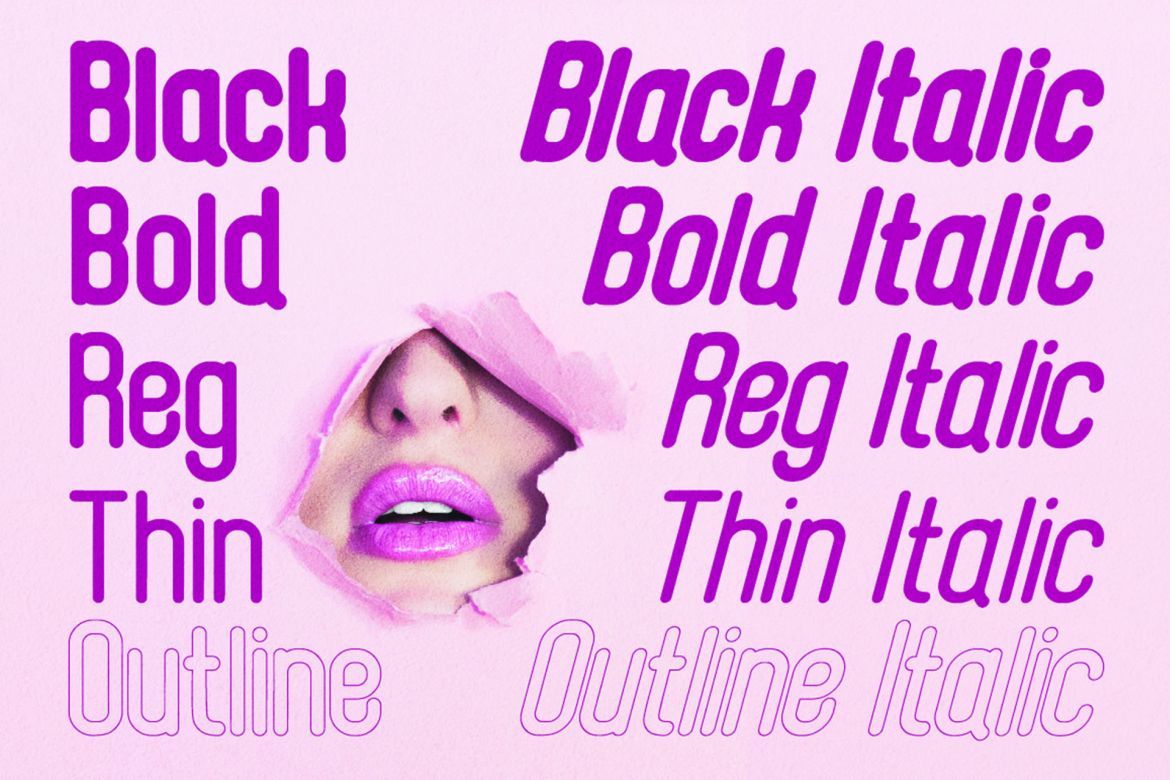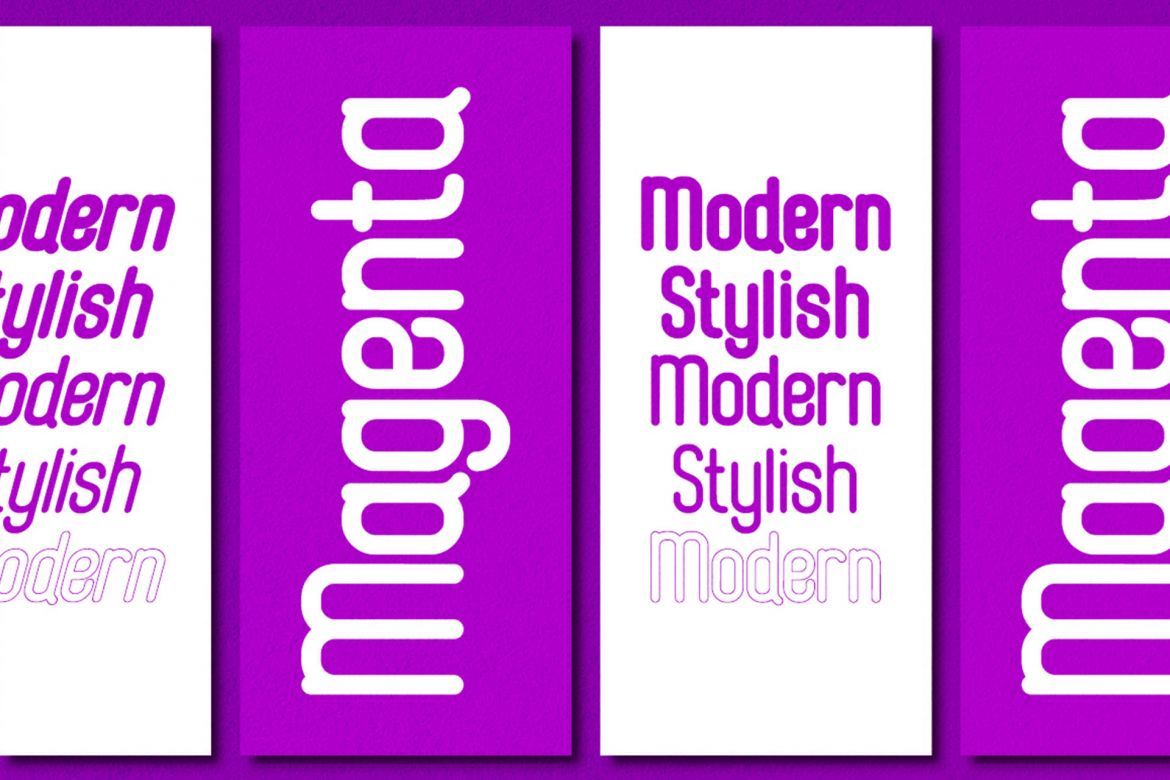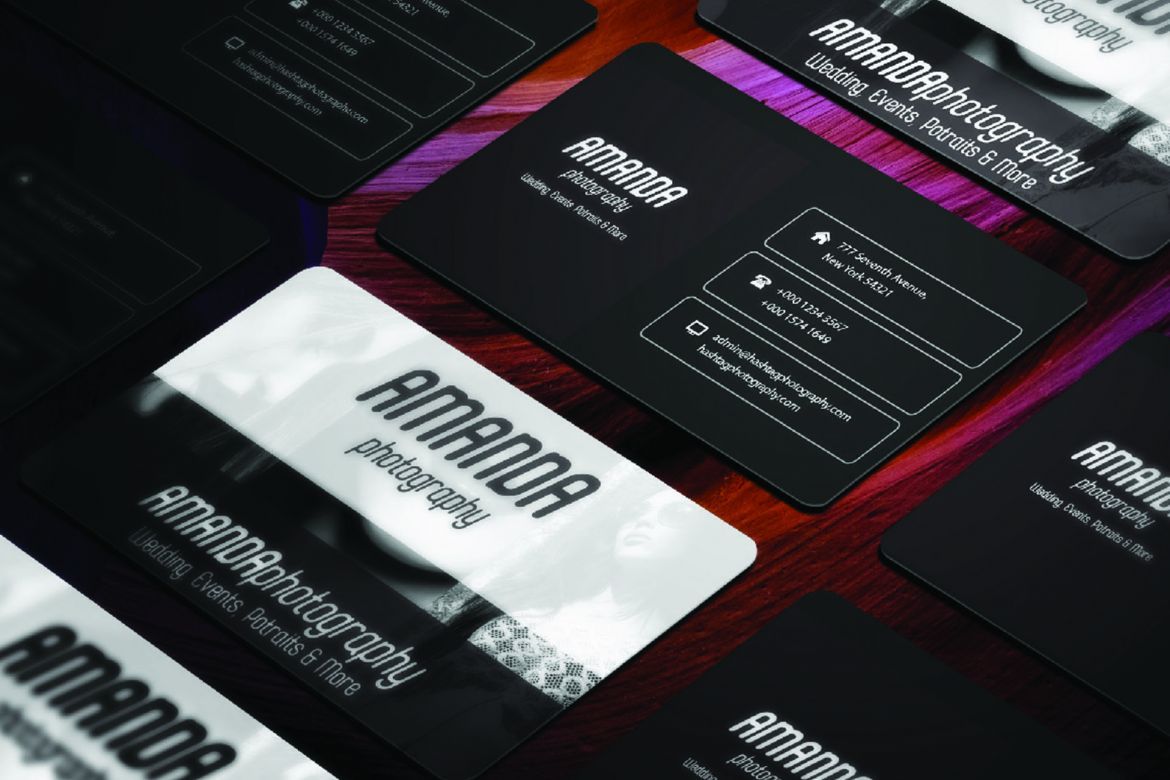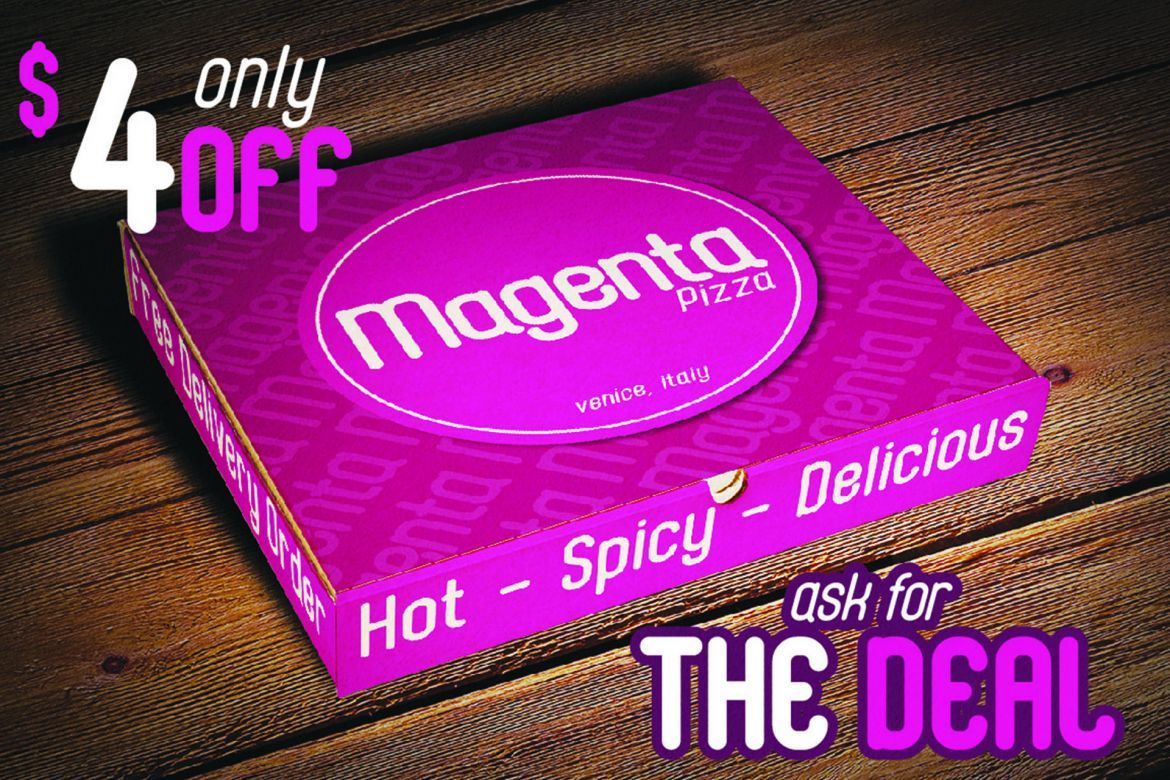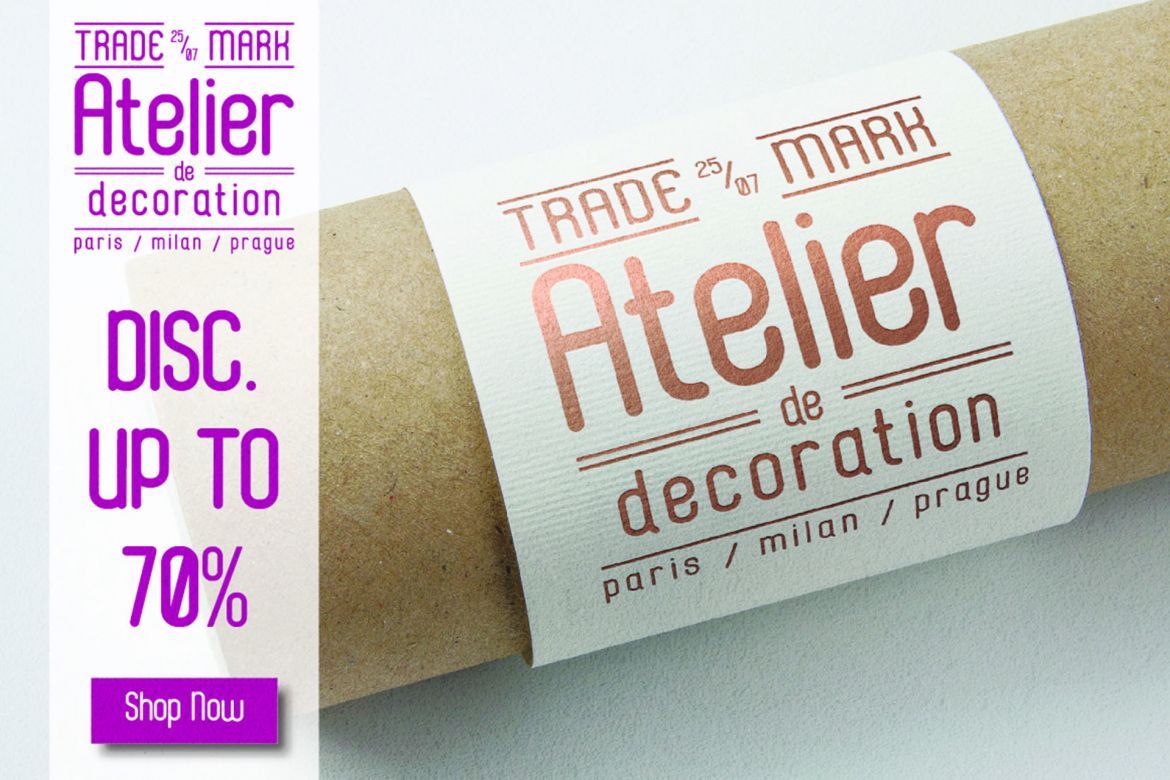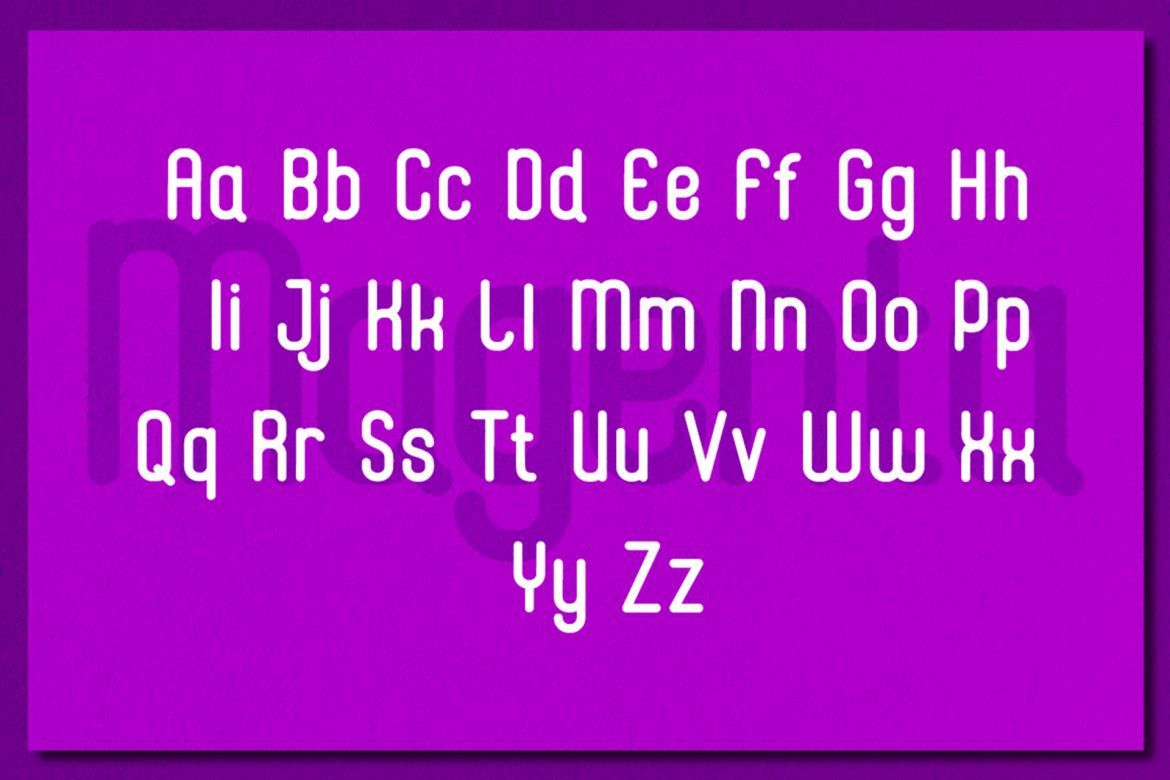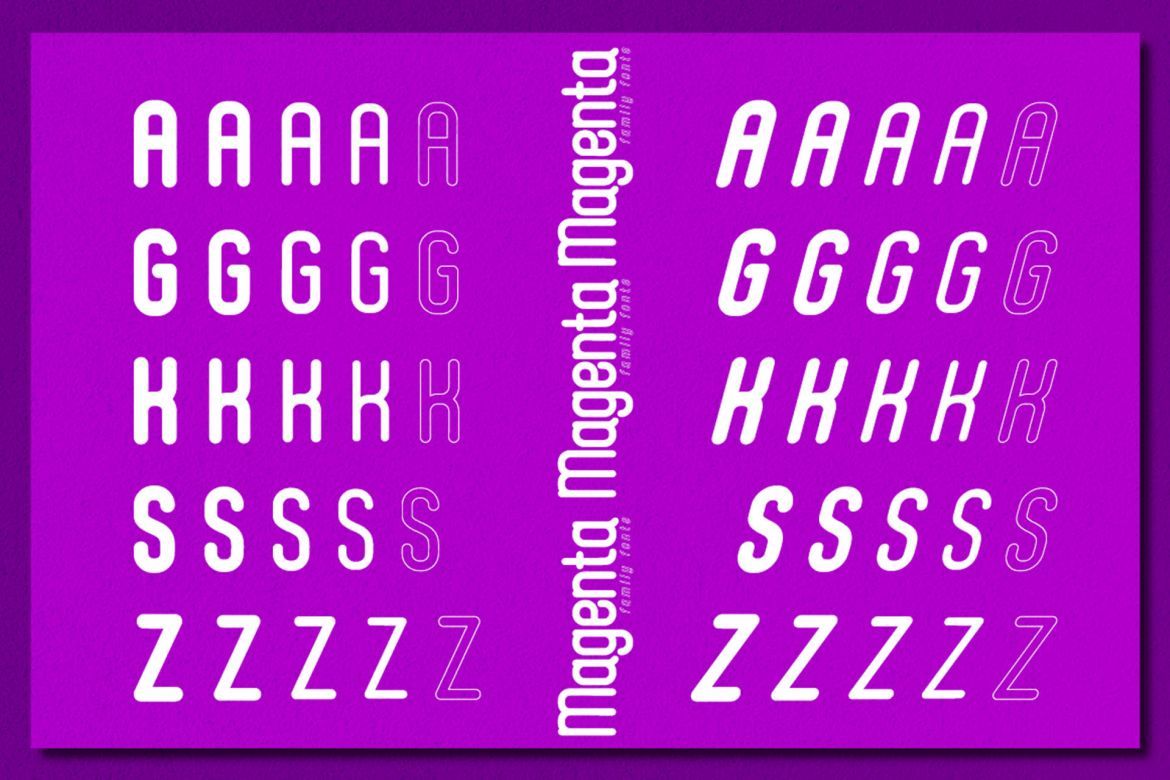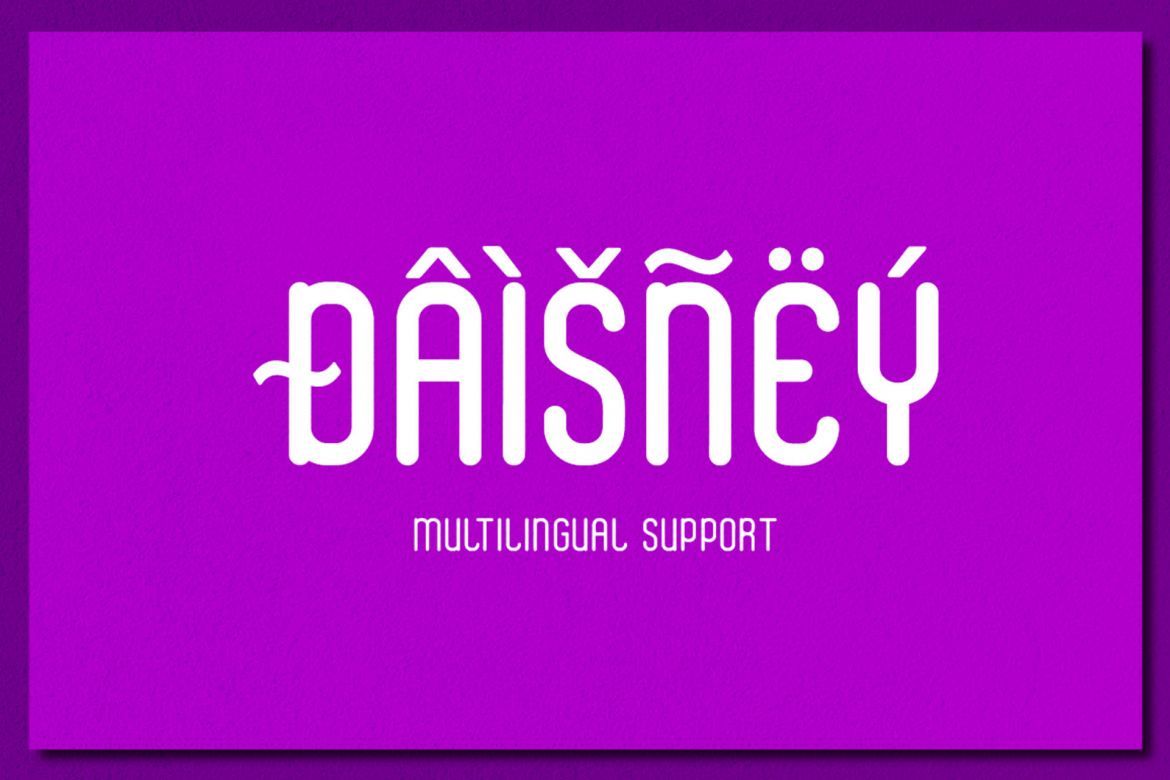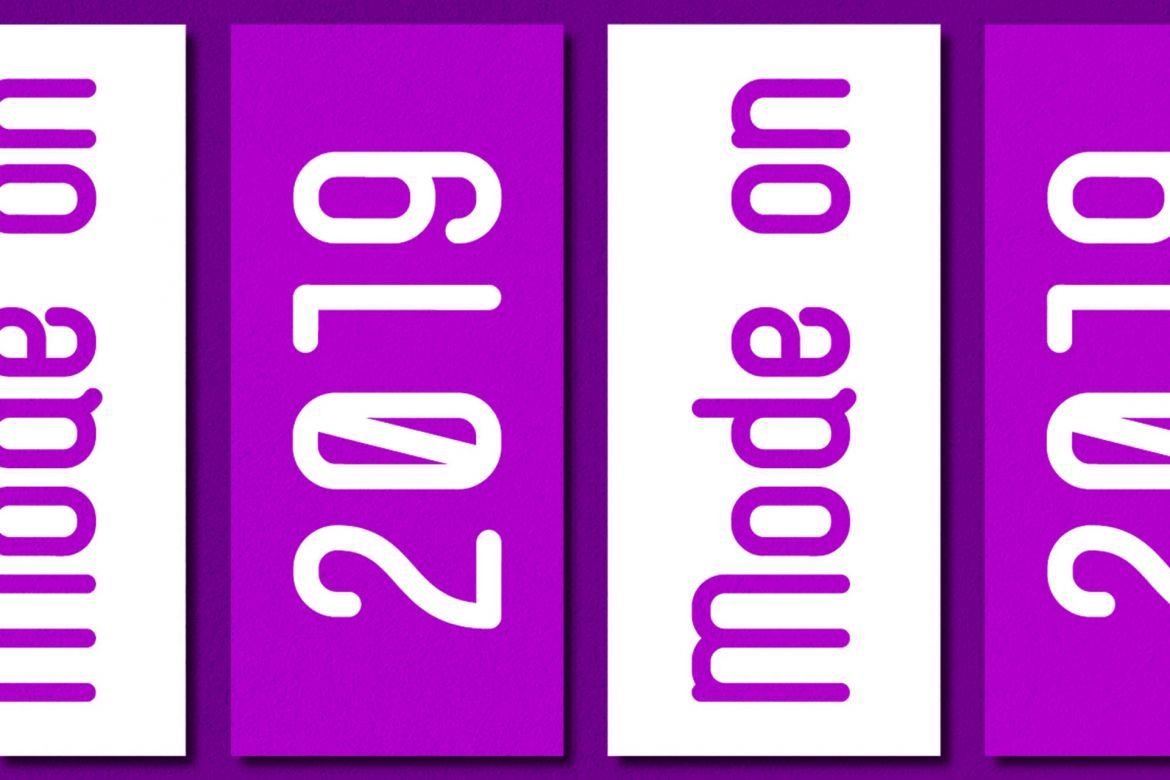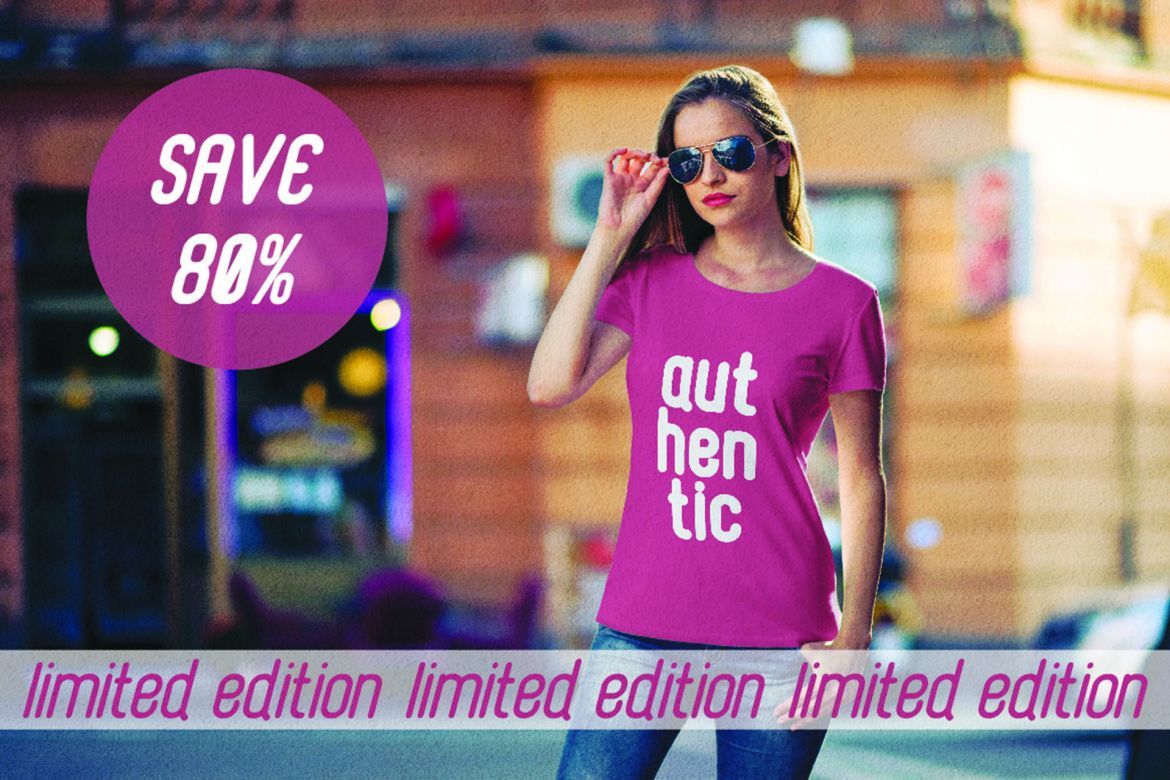
Magenta Family Fonts
Magenta is a fresh and modern family of sans-serif fonts. there are 10 fonts in it, black, bold, regular, thin and outline and also equipped with an italic version. The fonts are versatile and can be used successfully in magazines, posters, branding, websites, etc.